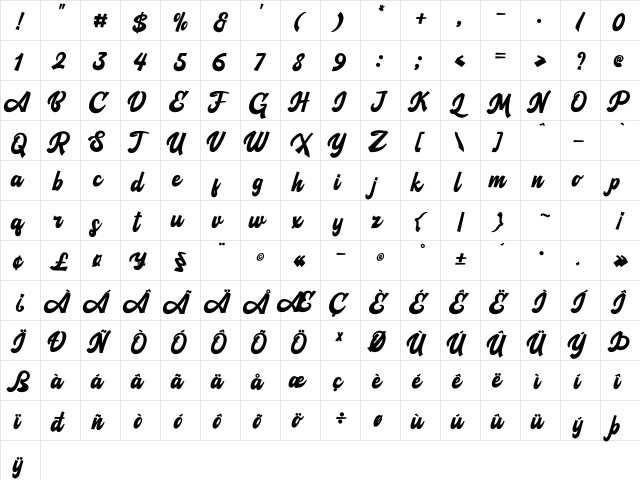
AgiesFresh Regular
Design Context for AgiesFresh Typeface
AgiesFresh is a composed and adaptable typeface that performs quietly and consistently across a wide range of design contexts.